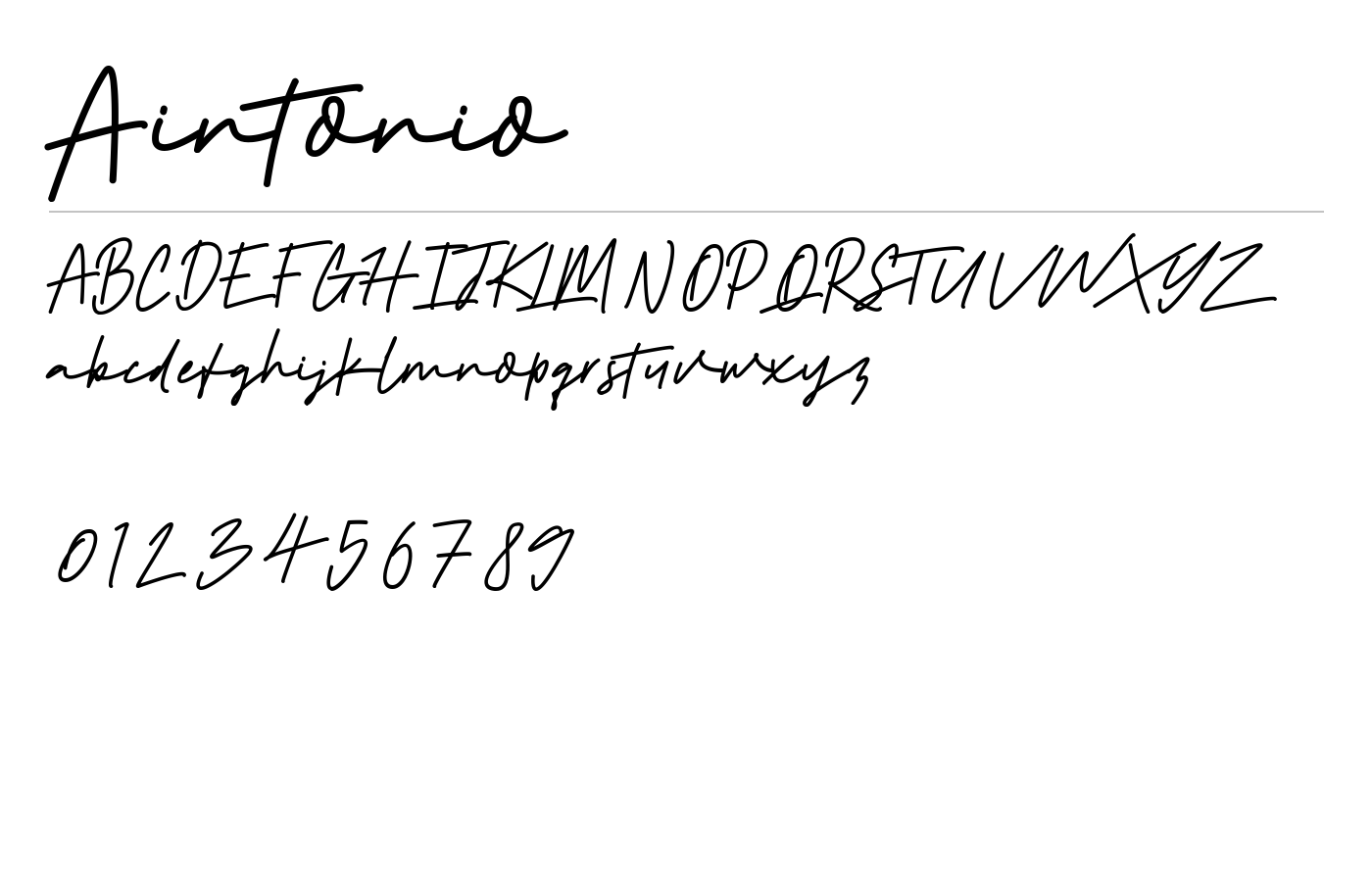
Aintonio is a lively handwritten script font with a casual, natural flow, featuring slender, slightly irregular strokes that mimic authentic penmanship. Its simple elegance and legibility make it ideal for personal branding, invitations, and creative projects seeking a warm, approachable, and modern touch. This font works beautifully in designs that want to convey friendliness and style without sacrificing clarity.
Aintonio Font